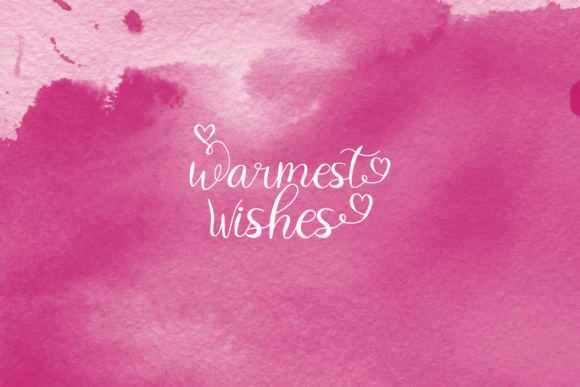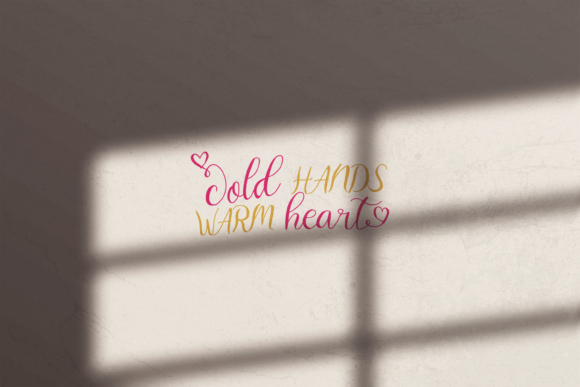
The Heart Warming Font: A Designer’s Dream Come True
I’ll never forget the time I was working on a romantic wedding invitation project, and I just couldn’t seem to find the perfect font. My client wanted something that exuded warmth, love, and elegance, but everything I tried looked either too bland or too over-the-top. That’s when I stumbled upon the Heart Warming font, and it was love at first sight! 💕
Heart Warming is a smooth and lovely script font that has become a staple in my design toolkit. Its incredibly romantic feel makes it perfect for a wide range of creative projects, from wedding invitations and Valentine’s Day cards to branding and packaging design.
So, what makes Heart Warming so special? Here are a few things I absolutely adore about this font:
- ✨ Smooth and elegant lines: Heart Warming has a beautiful, flowing script style that’s perfect for creating romantic and sophisticated designs.
- 💕 Romantic feel: This font just exudes love and warmth, making it perfect for projects that require a personal touch.
Of course, no font is perfect, and there are a few small quirks to be aware of:
- 🤔 Limited use in body text: While Heart Warming is stunning as a display font, it may not be the best choice for long blocks of body text.
- ⚠️ Some swashes may not work well in all contexts: While the swashes are beautiful, they may not work well in every design. A little experimentation is required to get the best results.
While the true story behind Heart Warming’s creation may be unknown, it’s easy to imagine that the designer was inspired by the romance and beauty of handwritten script fonts. Perhaps they wanted to create a font that would make people feel warm and fuzzy inside (pun intended!). Whatever the inspiration, Heart Warming is a true gem that deserves to be celebrated.
| Font Name | Heart Warming Font |
| Author | Sweet Vibes |
| Is Heart Warming suitable for body text? | While Heart Warming is stunning as a display font, it’s not the best choice for long blocks of body text. It’s best used for headings, titles, and short paragraphs. |
| Is Heart Warming available in different weights or styles? | Currently, Heart Warming is available in a single weight, but it’s still incredibly versatile and can be used for a wide range of design projects. |